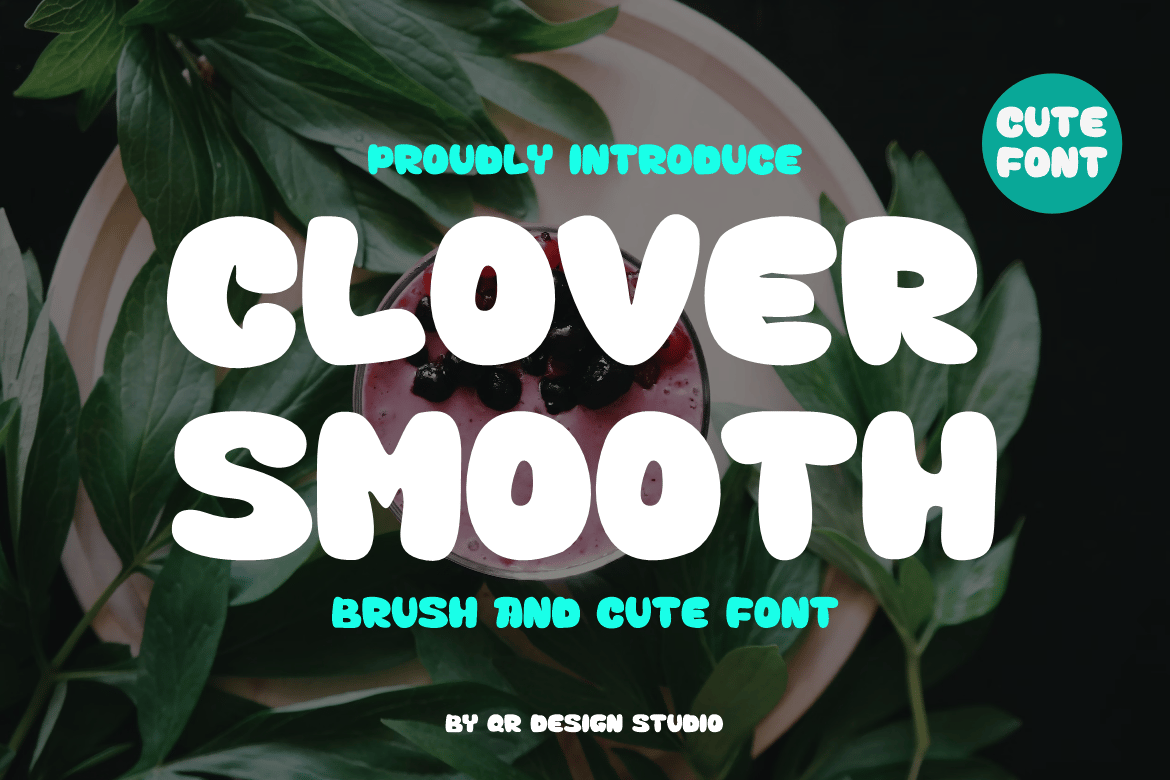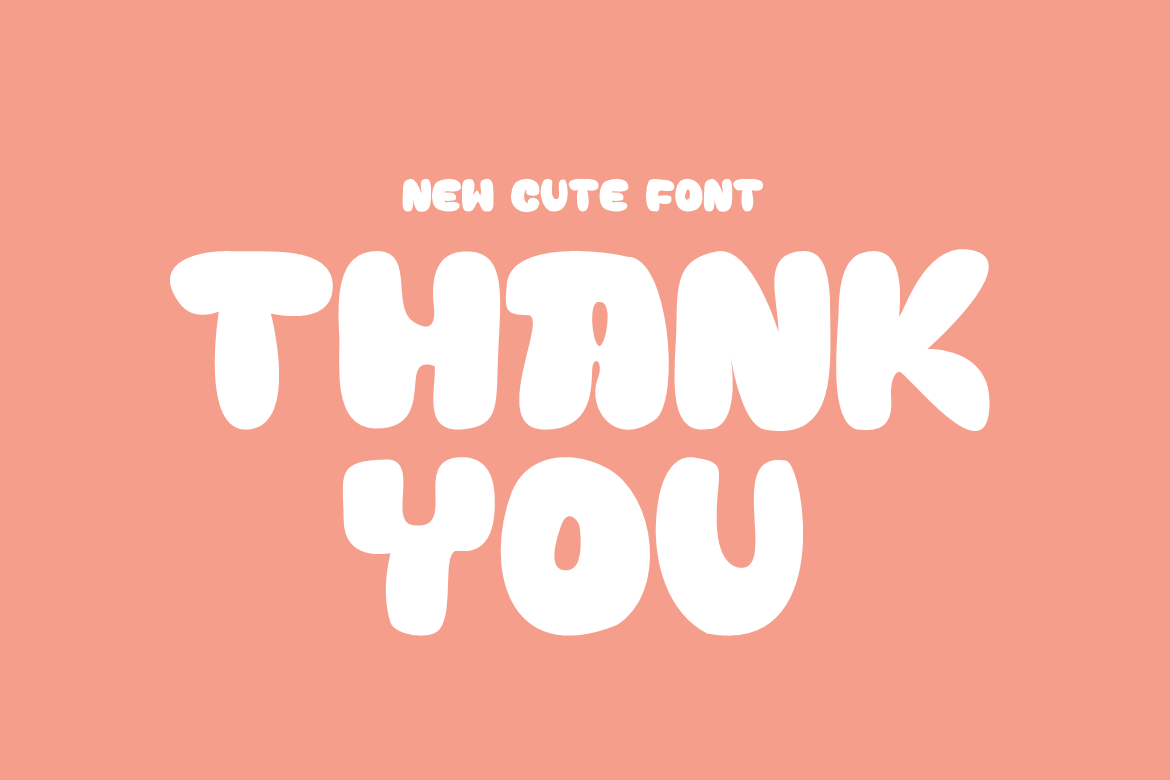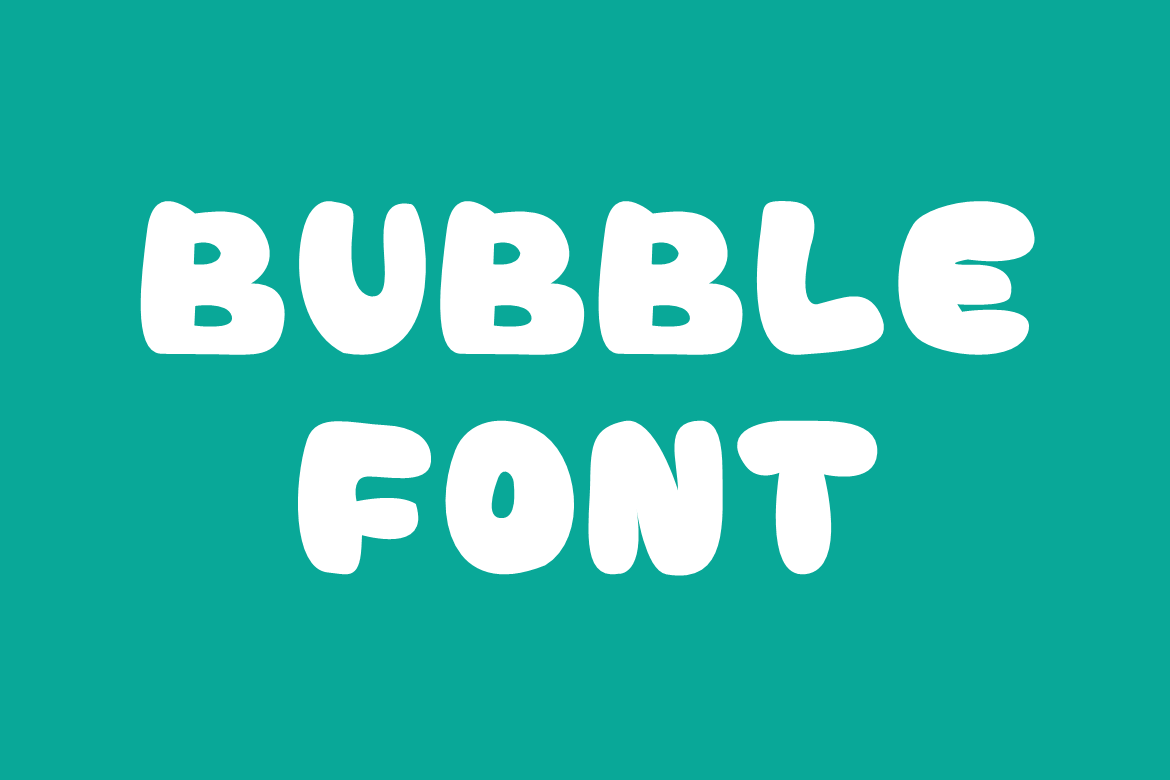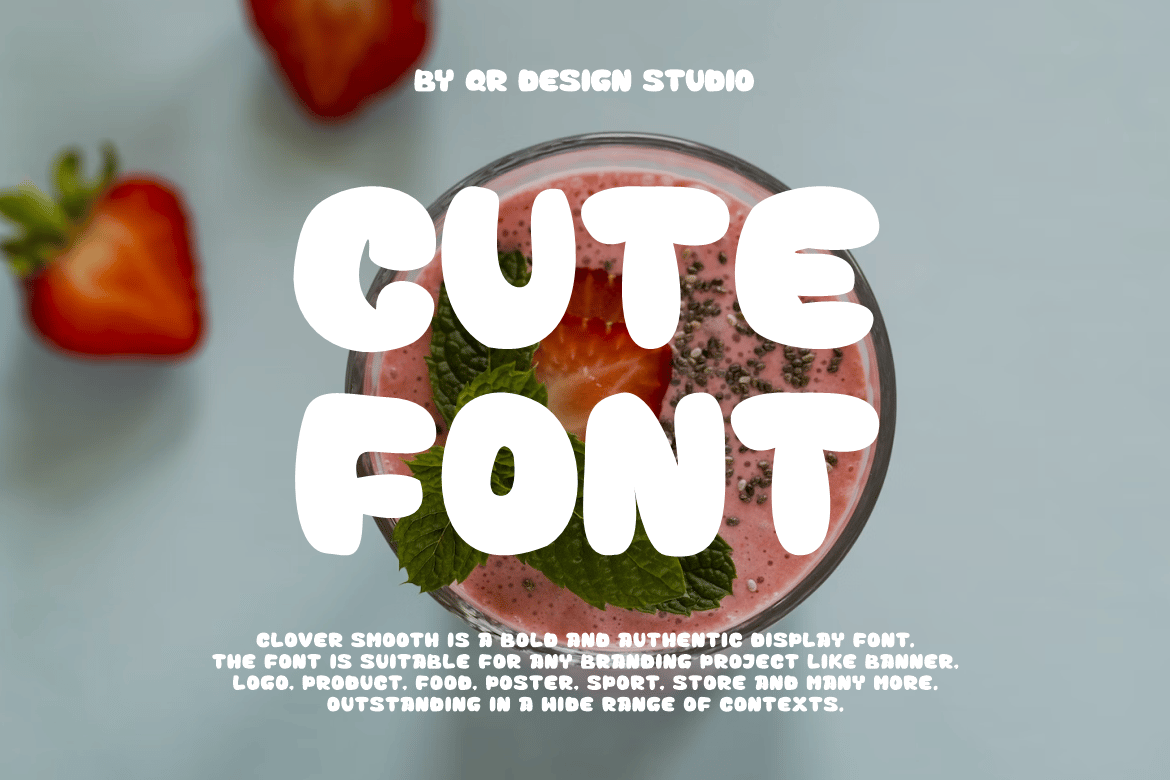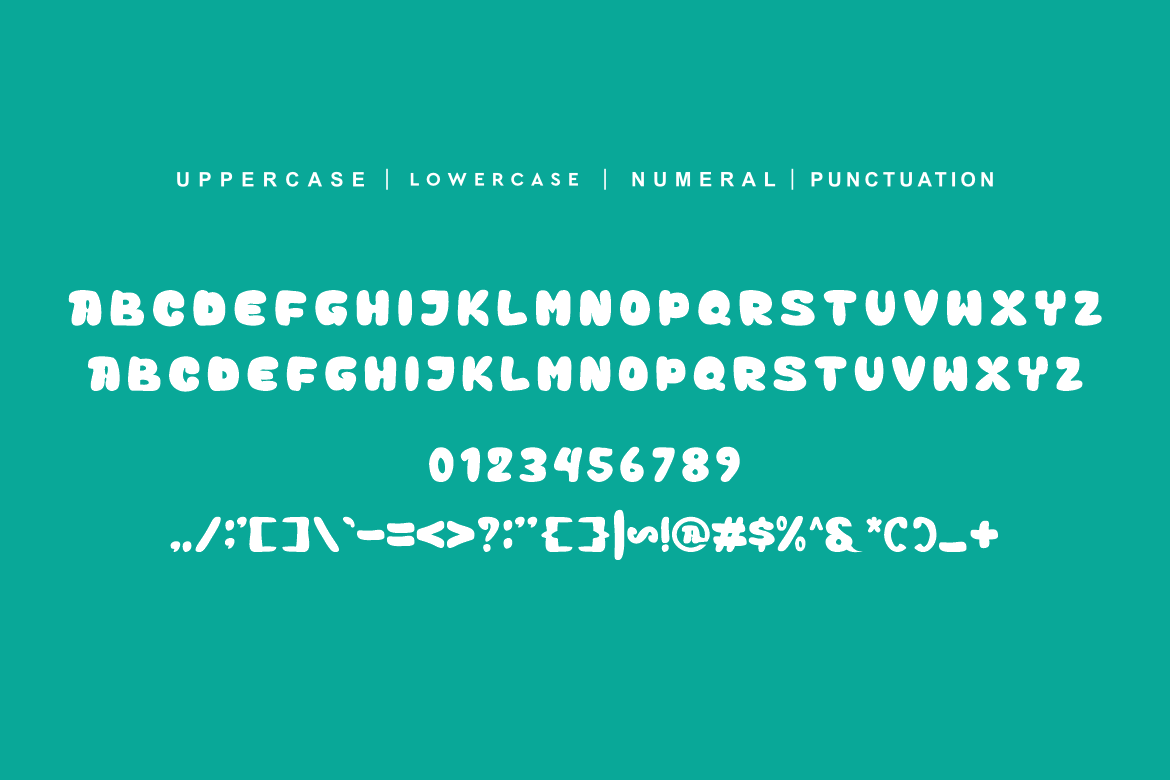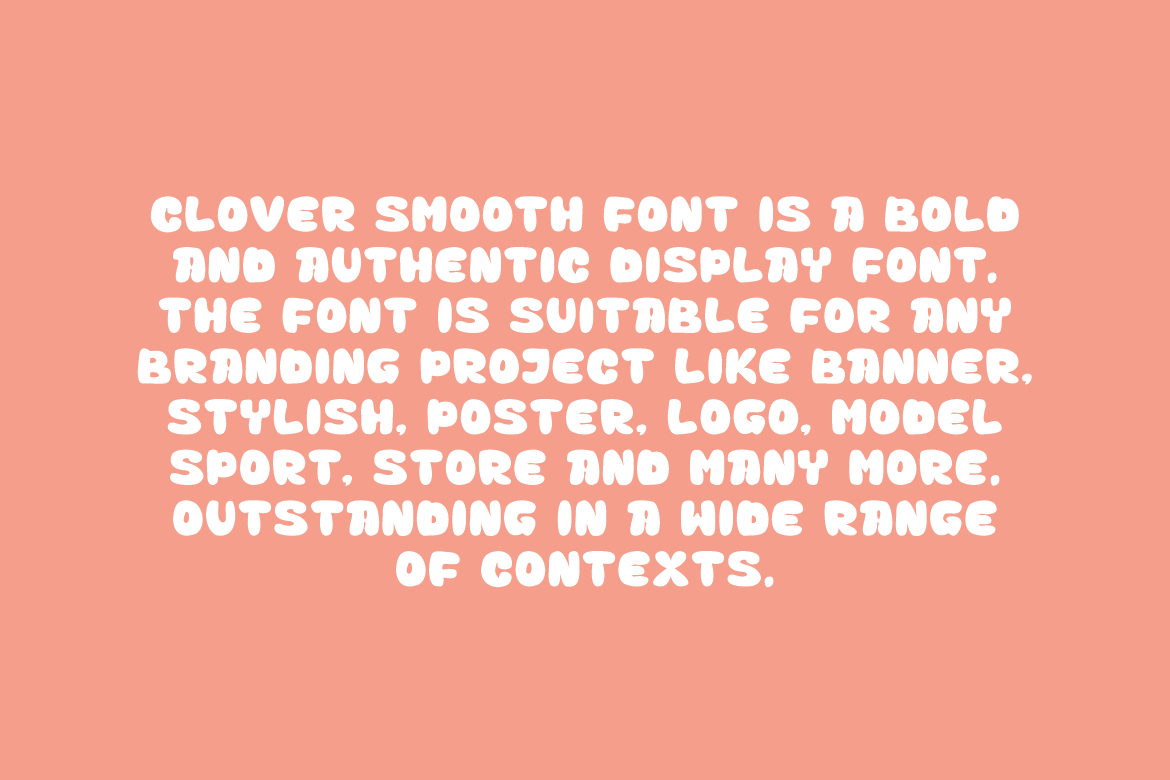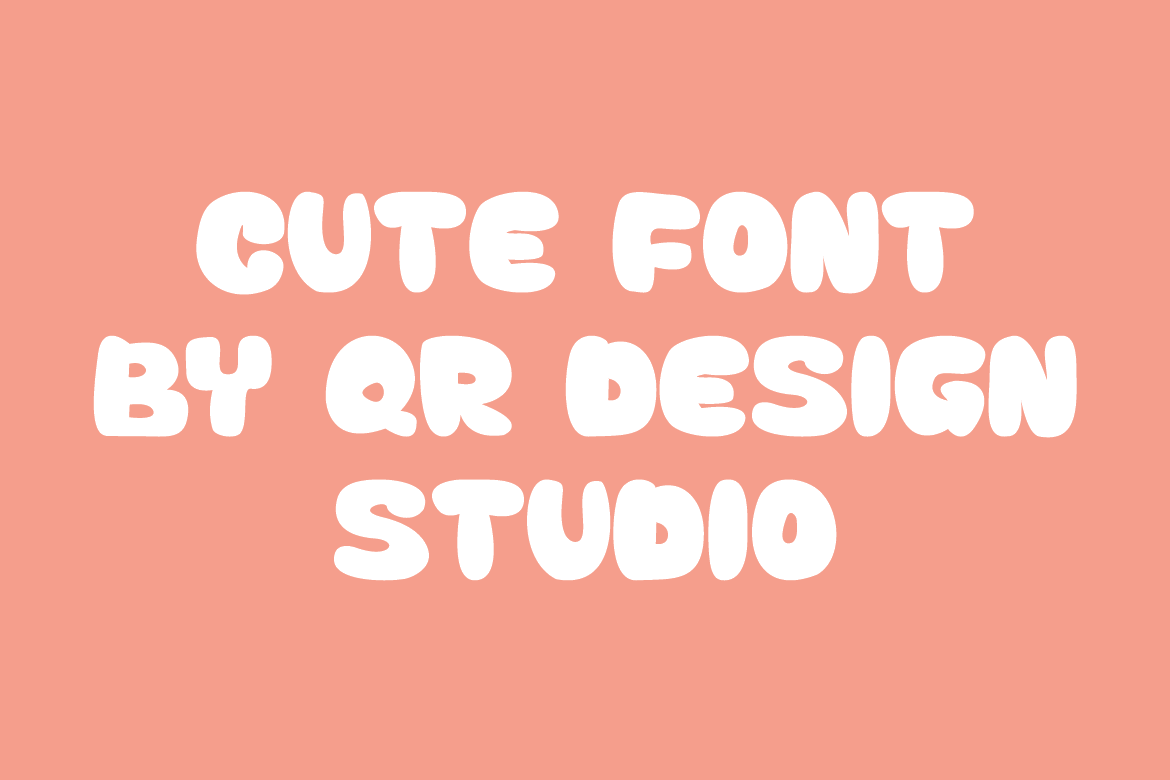
Clover Smooth – Bubble Fonts
Clover Smooth – Bubble Fonts is a bold and authentic display font.
The font is suitable for any branding project like food, drink, kids, poster, playful, logo, sport, and many more.
Outstanding in a wide range of contexts.